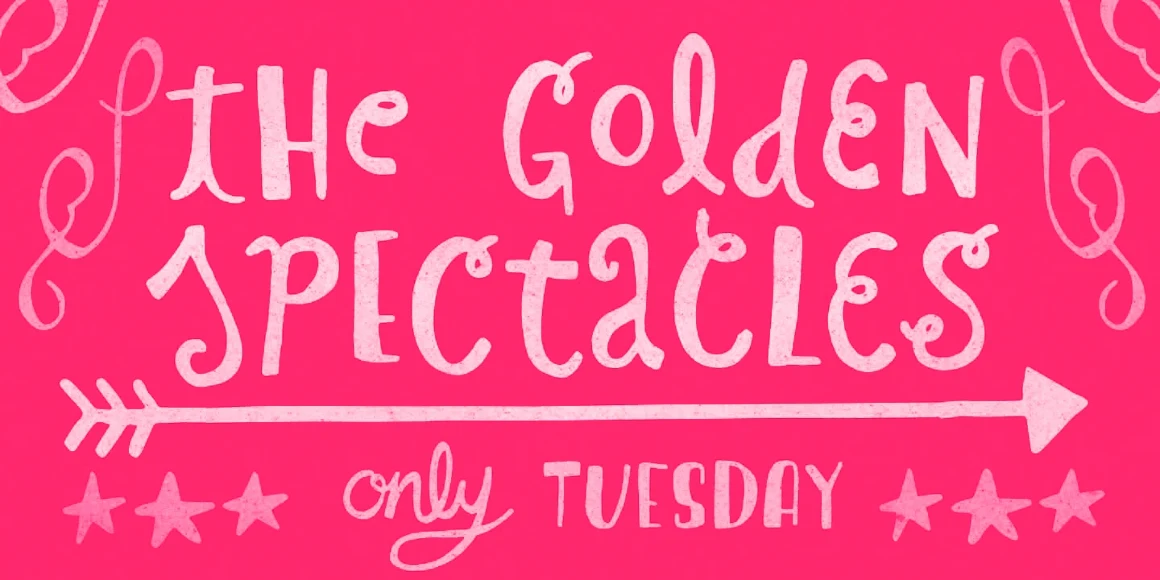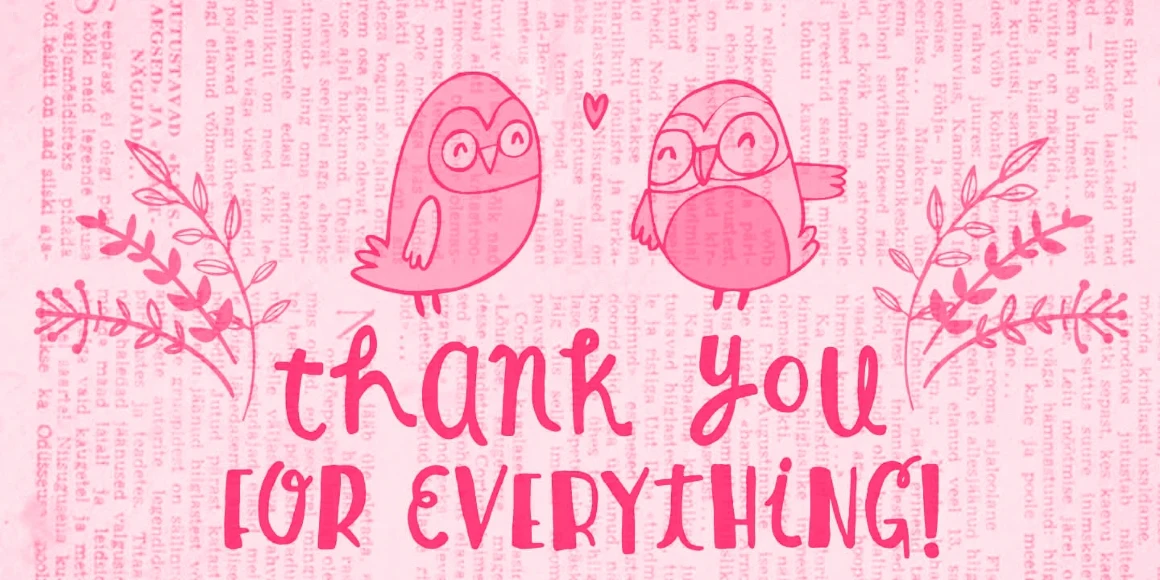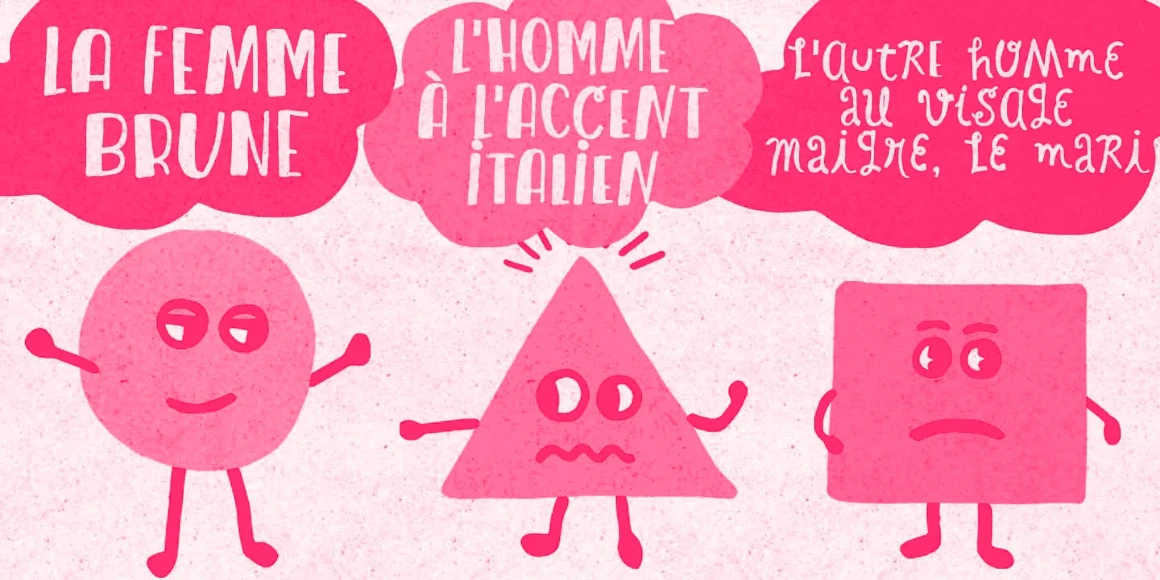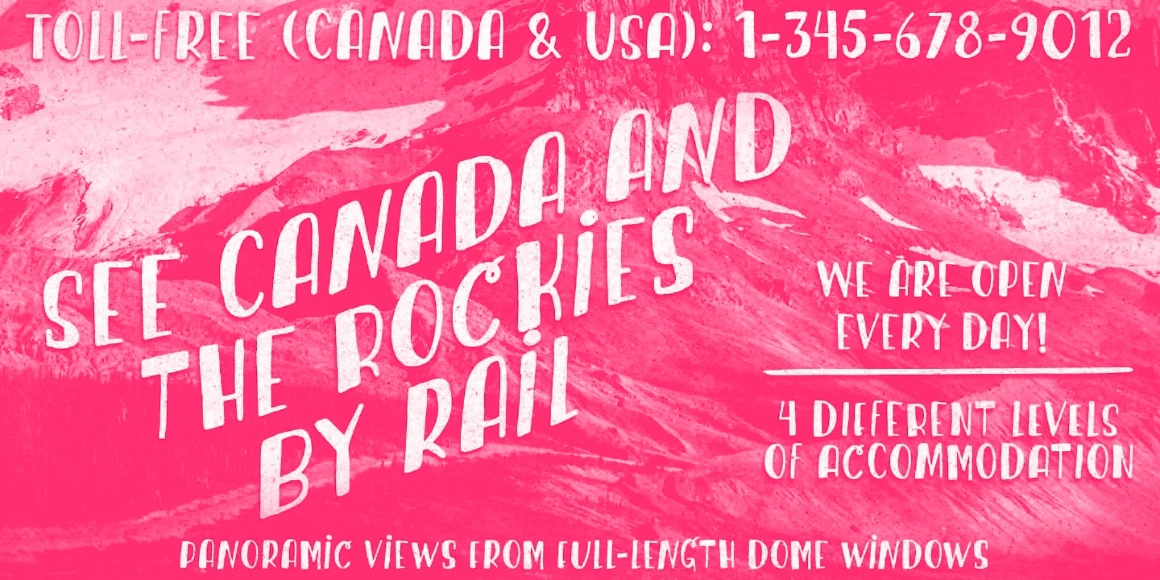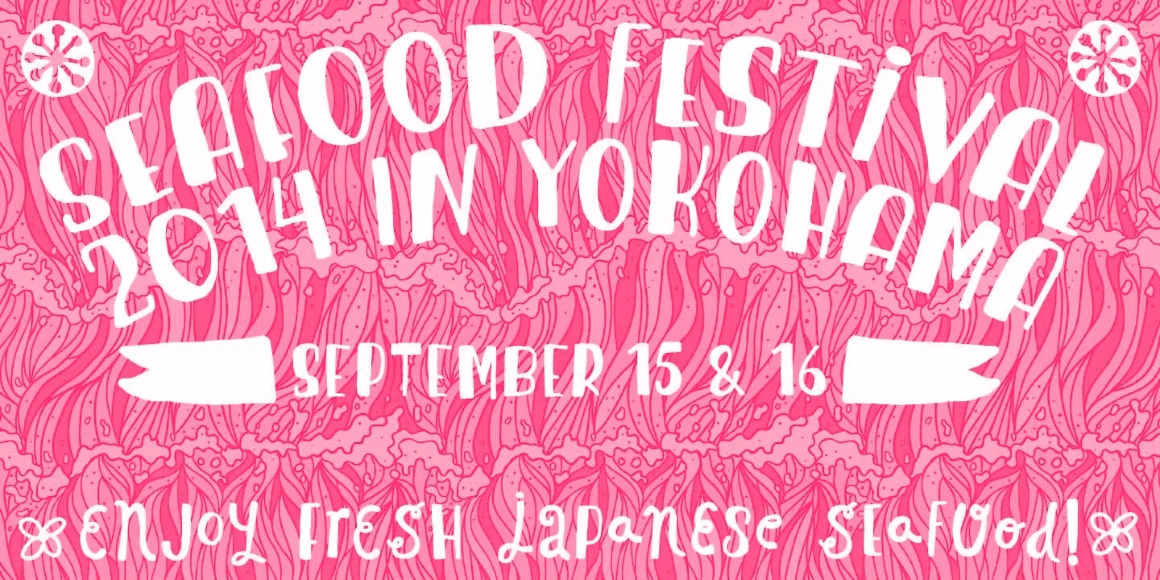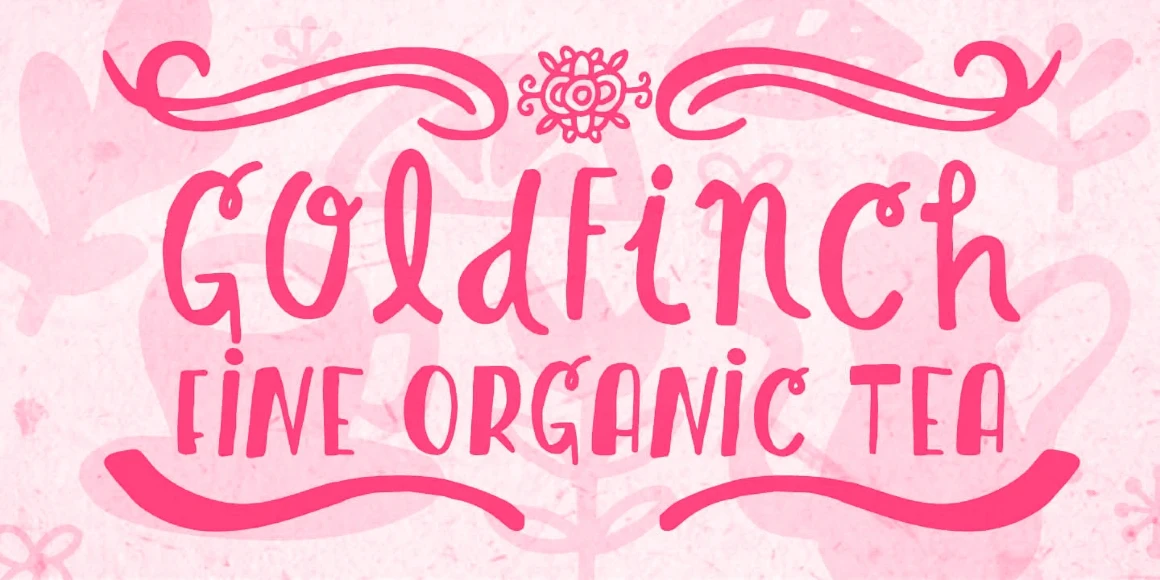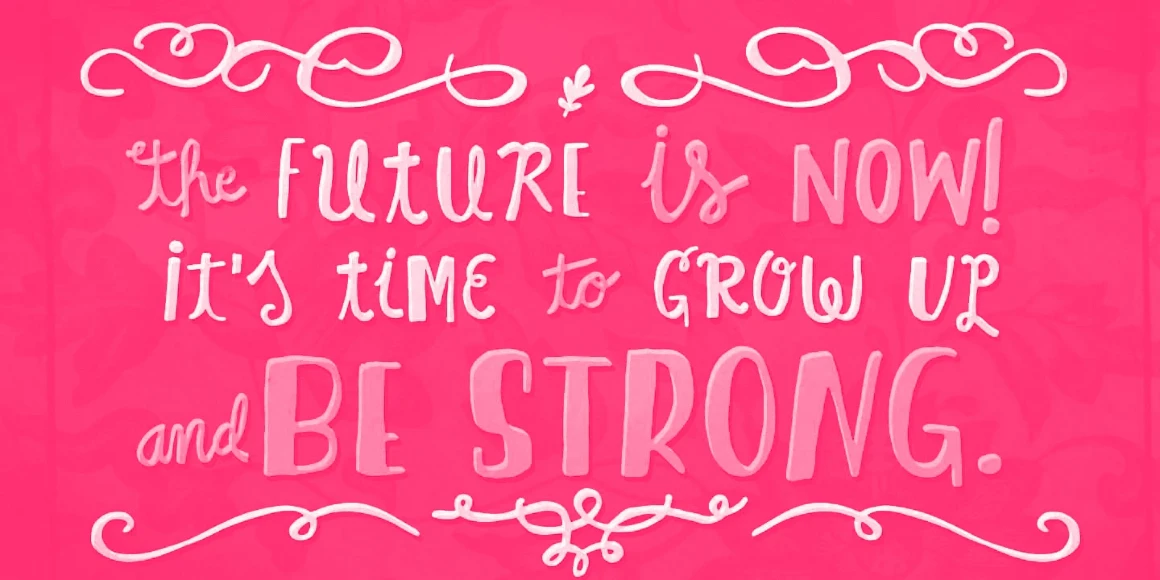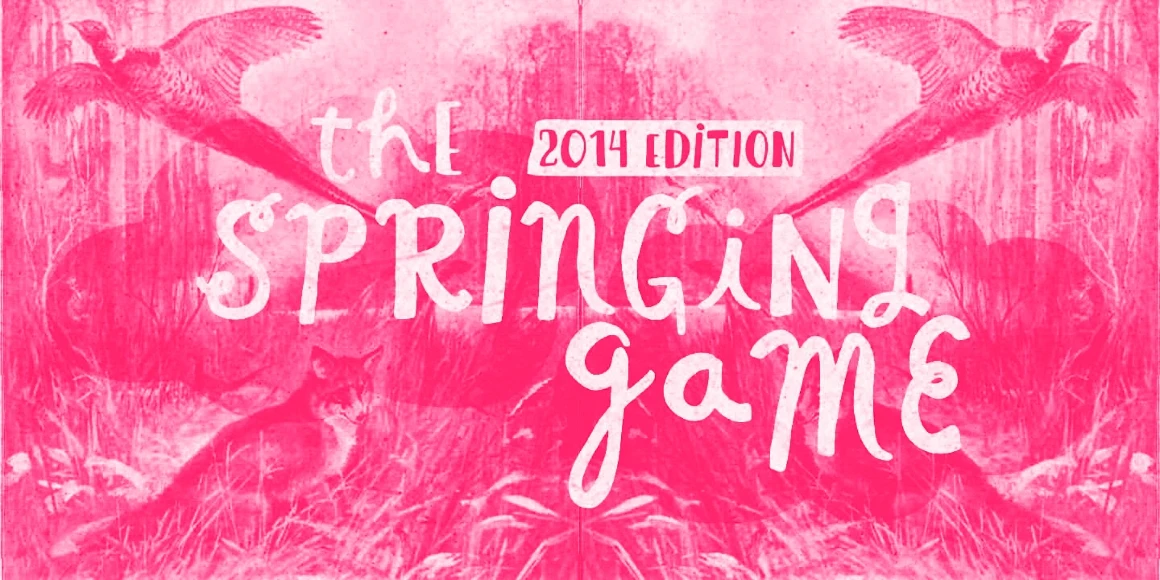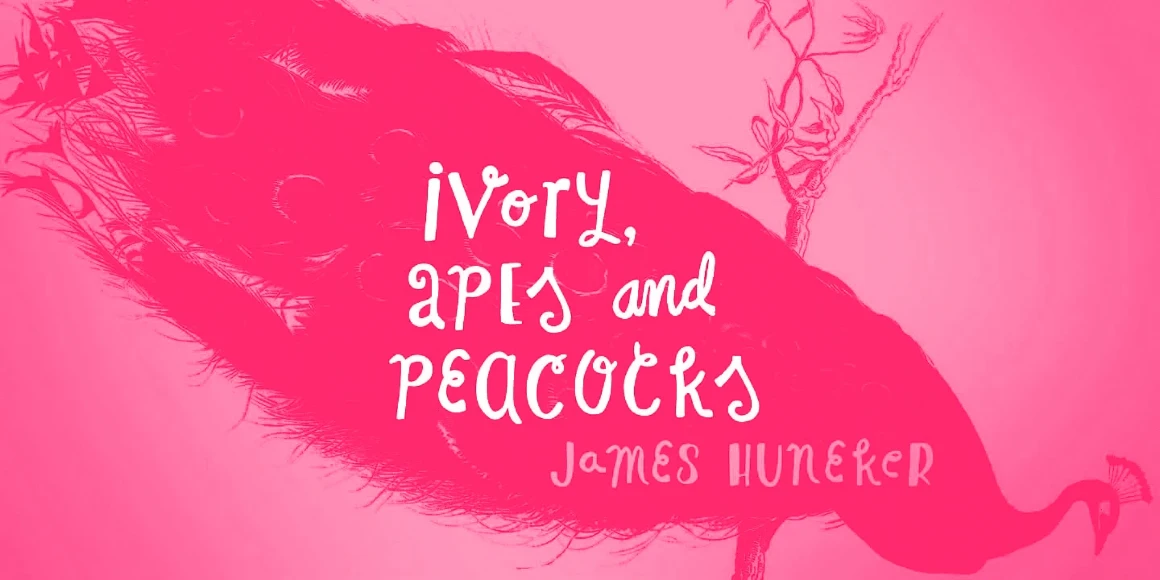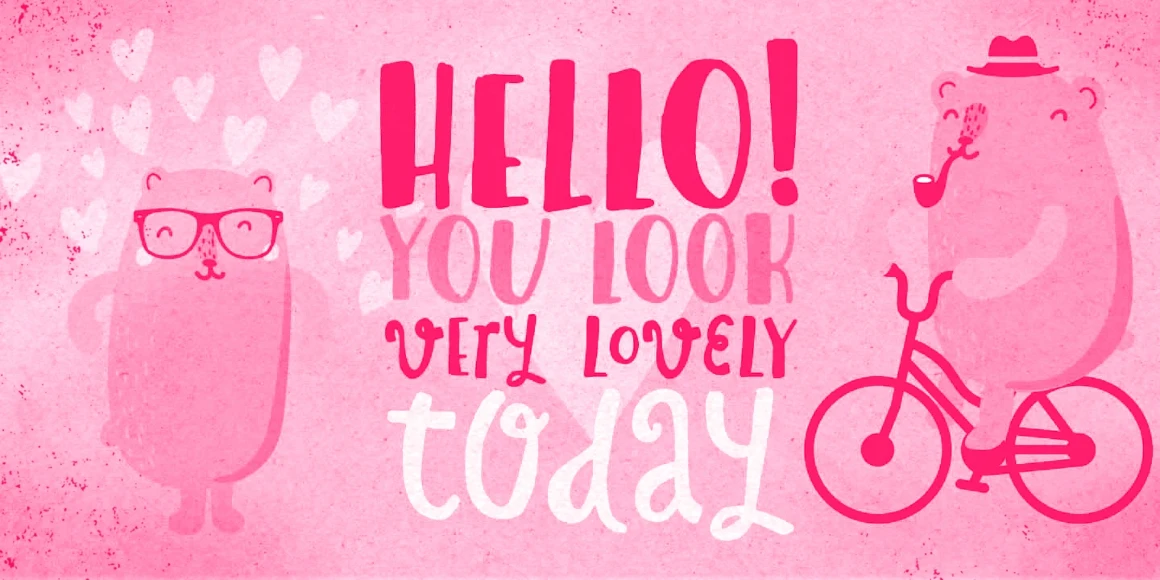
Blueshift
Blueshift is a playfully hand-drawn font family. Featuring an expressive script, an all-caps sans serif, and a set of decorations, all with a lively rhythm and a friendly tone. They all play together devilishly well or use them separately, too! Perfect for children’s books, journals, invitations, and packaging calling for a lighthearted and human touch.
Blueshift More
Blueshift Regular
Blueshift Stick